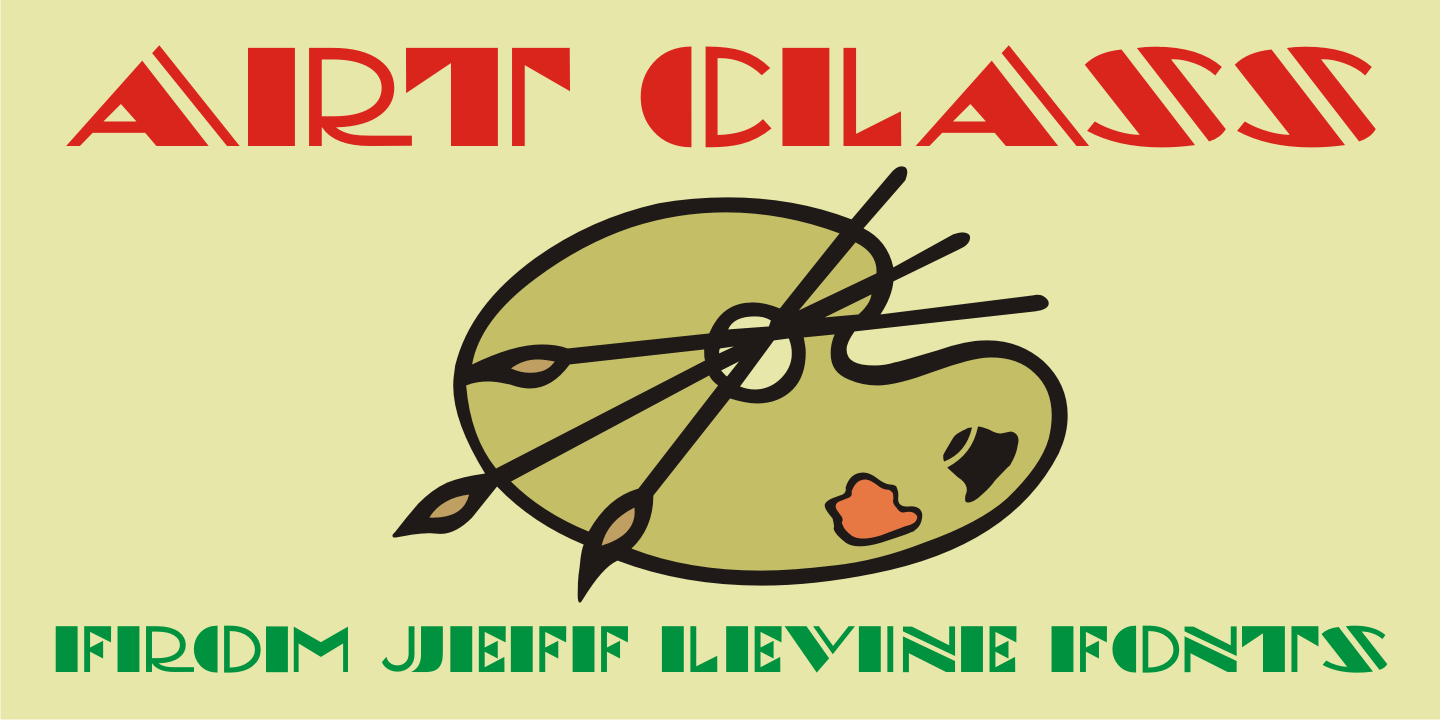
Art Class
Art Class JNL was re-created from the titling of a lettering booklet called 'Drawlet Portfolio”, published by the Esterbrook Pen Company in the 1930s.
Drawlet pens were Esterbrook's answer to the popular Speedball lettering pens, and the booklet was an instructional manual on hand lettering with the pen nibs.